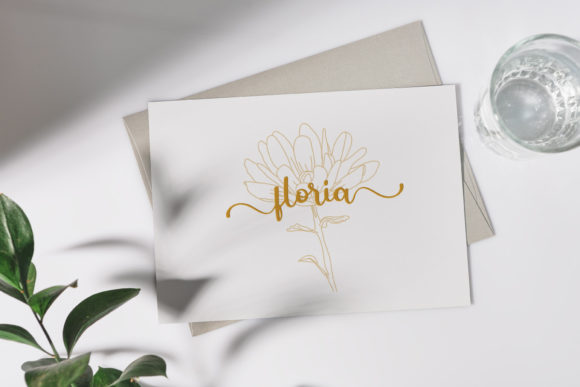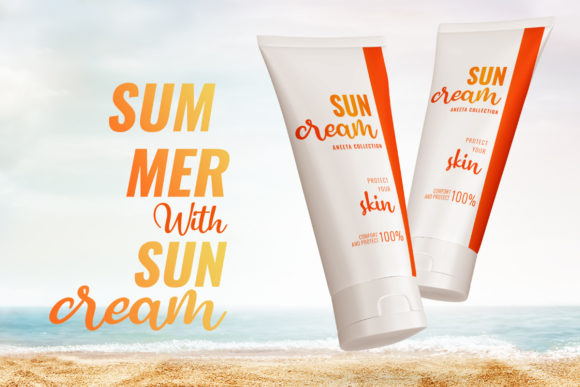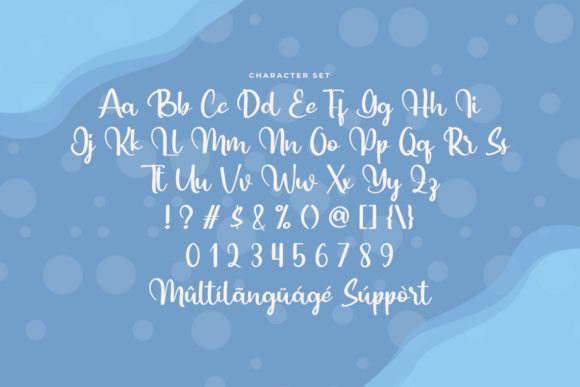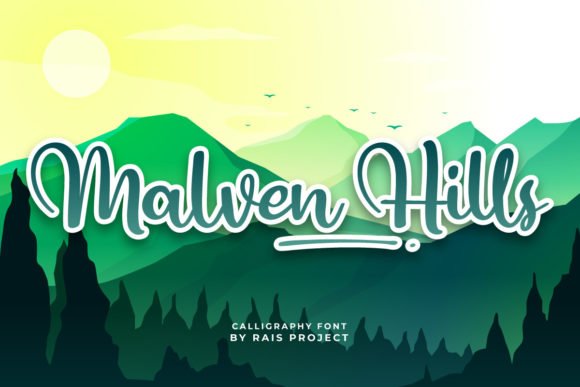
Introduction to Malven Hills Font
Malven Hills is a sweet and delicate handwritten font.
Dainty and joyful, this font will be ideal for writing wedding invitations, cards or any other design that may need a romantic, personalized touch Malven Hills is PUA encoded which means you can access all of the glyphs and swashes with ease.